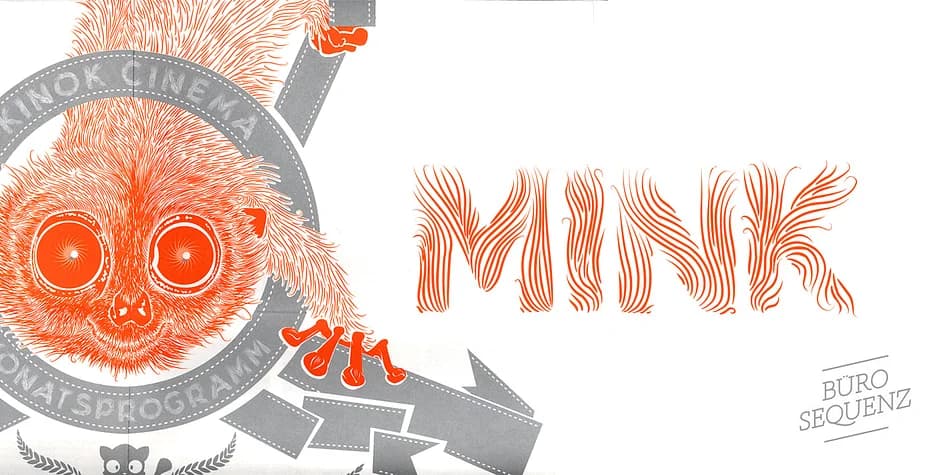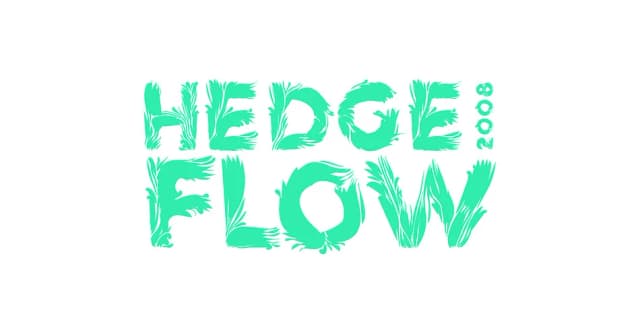
About MINK Font
MINK by Büro Sequenz is a tactile display font built with an intentionally fuzzy, hand-crafted character. The typeface shines when you need genuine texture and personality in your design work, rather than trying to fit everything into a clean sans-serif mold. Consider it for pet product branding where a playful voice matters, children's book covers that need warmth, creature character design work, or packaging for eco-friendly faux fur clothing lines. This is a font that works best when you lean into its shaggy aesthetic and let it guide your creative direction.
The hand-built quality comes through in how the letters feel almost tactile on the page, which reads as approachable and genuinely engaging. It's particularly strong for projects where a softer, less corporate edge actually serves your message better. Boutique pet salon signage and branding, DIY animal character headers for storytelling sites, playful greeting card designs, and craft fair promotional posters all benefit from that fuzzy personality. The typeface has enough character to work as a real focal point without needing excessive supporting graphics to make it land.
- Eye-catching, Bold
MINK Font is a display font that shines as a display or heading face. Pair it with a clean sans-serif or serif font for body text — the contrast creates a clear hierarchy while the two styles stay balanced and easy to read.